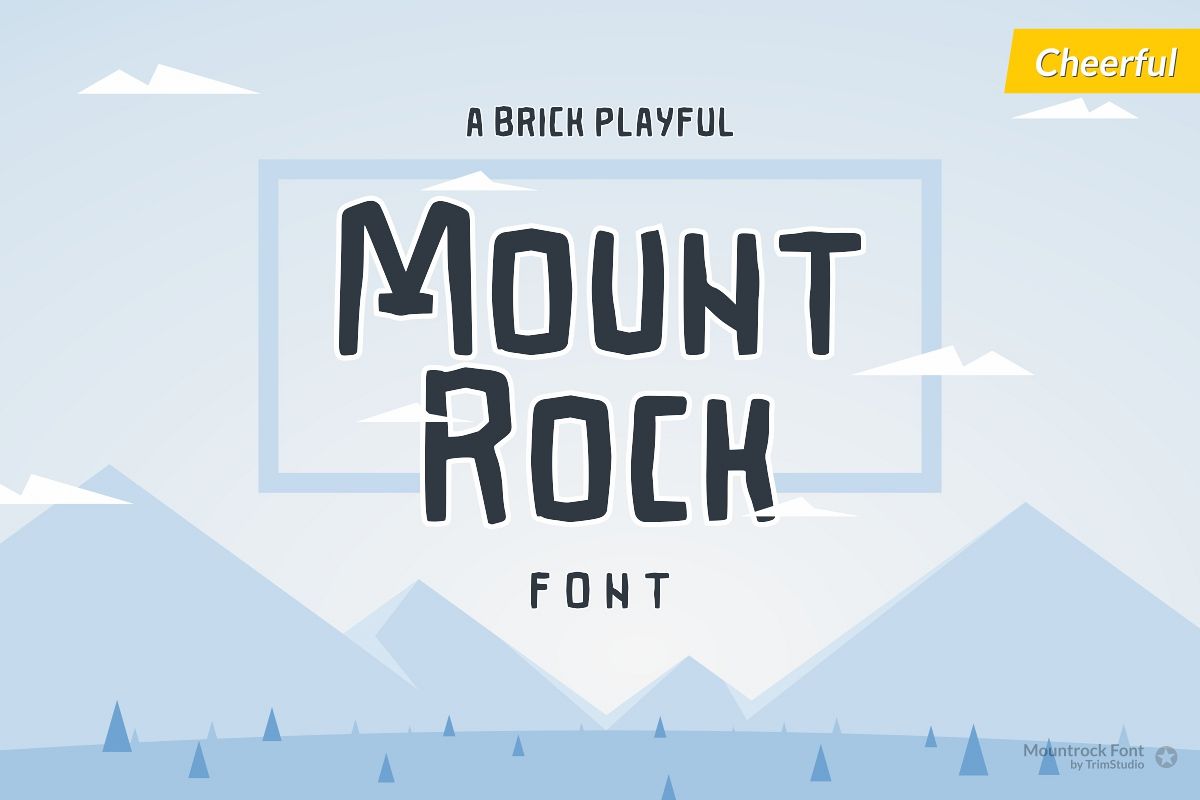
Mountrock - Summer Camp Font
Introducing Mountrock Font
Mountrock is brick playful font, with the various block shape can gives fun and strong feel of on your casual design